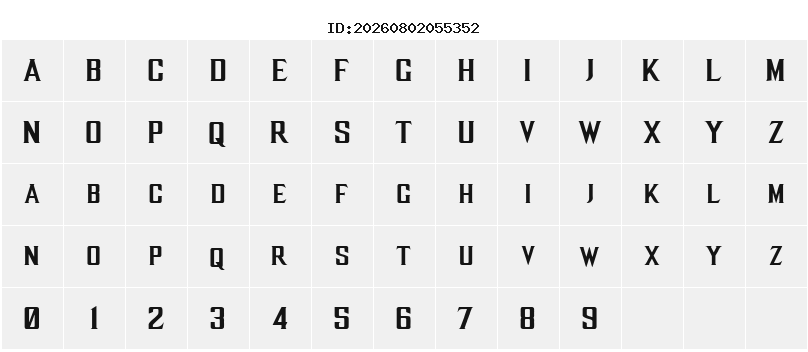
• Font Name: MKX Title
• Designer: Dennis Ferrand
About MKX Title.ttf
MKX Title.ttf is a modern, elegant sans-serif font designed for ultimate readability and visual harmony. Perfect for branding, headlines, web design, and print materials.